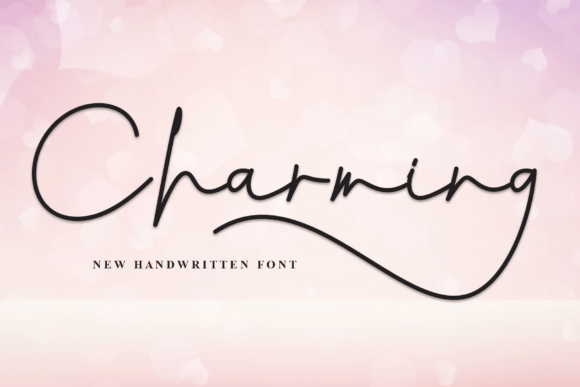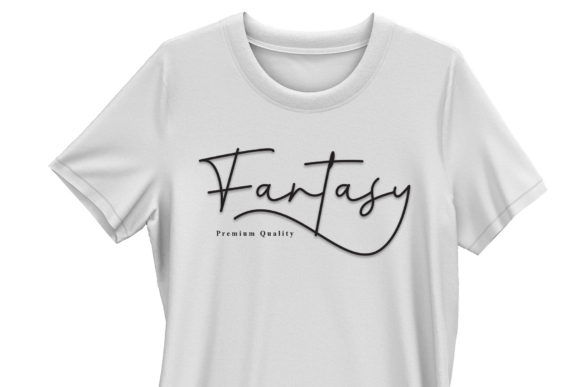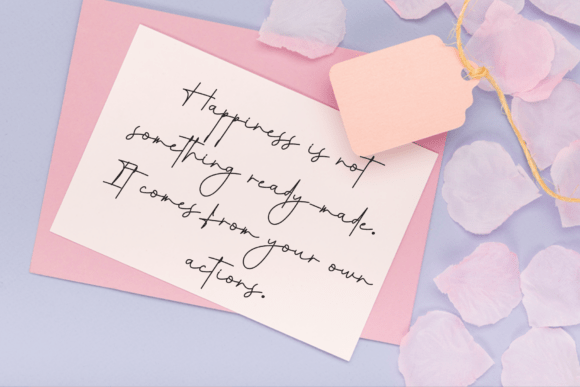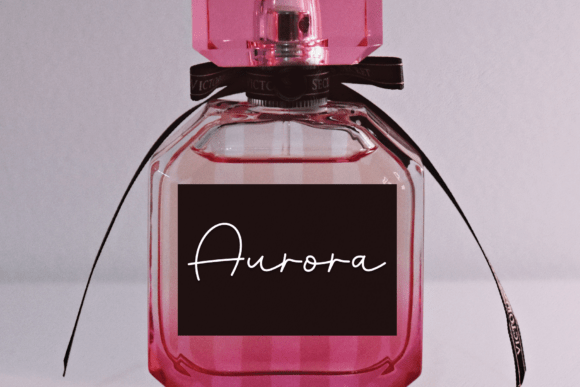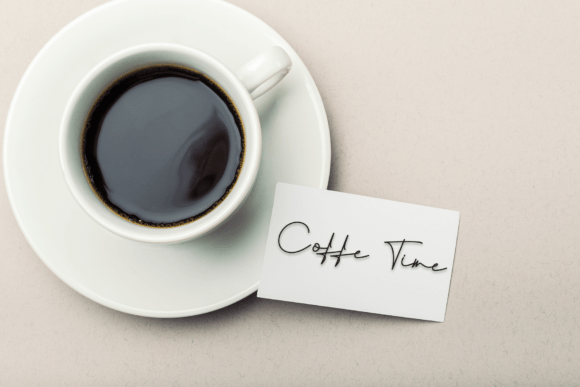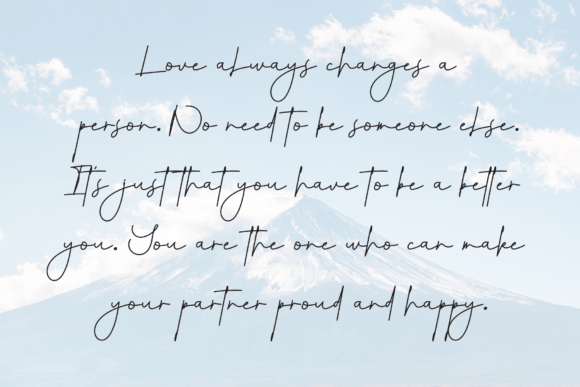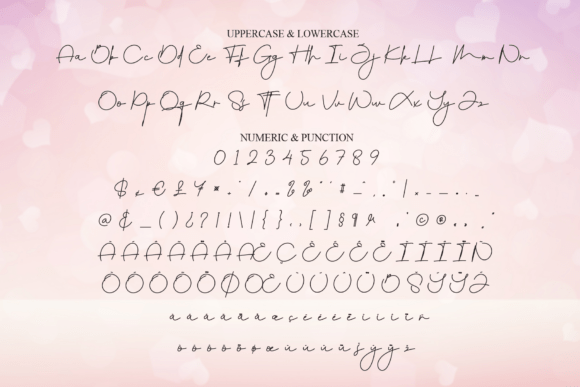
Where Words Become Love Letters
Have you ever stumbled upon a handwritten note from a loved one, and felt your heart skip a beat? The way the pen glides across the paper, leaving a trail of warmth and affection, is truly magical. It’s moments like these that inspire us to create with love and care.
Enter the Charming Font, a beautiful handwritten script font designed to radiate warmth and affection. This elegant font is perfect for romantic projects, wedding invitations, branding, and heartfelt messages. Its flowing strokes and delicate curves make it an ideal choice for designers looking to add an intimate and personal touch to their work.
For designers seeking to convey emotions with style and charm, the Charming Font is a valuable asset. Its versatility and charm make it a go-to font for creating lasting impressions and meaningful connections with your audience.
Key Features of Charming Font
- Font Style: A beautiful, elegant script font with a touch of whimsy, perfect for adding a romantic or vintage feel to your designs.
- Unique Characteristics: Features intricate flourishes, flowing connections, and subtle texture, giving your designs a unique and eye-catching touch.
Charming Font Review
Overall, I have mixed feelings about the “Charming Font”. There are some aspects that I really enjoy, but others that leave me wanting more.
- Unique and elegant design: The font has a distinctive and charming personality that can add a touch of whimsy to any project.
- Good legibility: Despite its ornate nature, the font is still easy to read, making it suitable for body text and larger displays.
- Support for various languages: The font includes a wide range of language support, making it a great choice for international projects.
- Limited character set: The font is missing some special characters, which can be a problem for projects that require them.
- No italic or bold weights: While the font is available in regular weight, it’s not suitable for projects that require italic or bold text.
- Not ideal for small text sizes: Due to its ornate nature, the font can become difficult to read at small text sizes.
While the “Charming Font” has some great qualities, its limitations make it less versatile than I’d like. It’s a great choice for projects that require a unique and elegant design, but may not be the best fit for every project.
Charming Font is ideal for:
- Blog posts and articles
Tips for Getting the Most Out of Charming Font
To get the most out of Charming Font, consider the following tips:
- Use it in combination with other elegant fonts for a sophisticated look.
- Use Charming Font for headings and titles to create a clear hierarchy of information.
- Set the font as the primary text style for the invitation’s main content.
- Use the font’s swashes and flourishes to add a touch of elegance to the invitation’s header and footer.
- Pair Charming Font with delicate, hand-drawn illustrations to create a whimsical atmosphere.
- Use watercolor textures and effects to add a soft, romantic feel to the design.
- Use the font as the primary text style for the book title and author’s name.
- Experiment with font sizes and colors to create visual hierarchy and emphasis.
- Pair Charming Font with a stylized illustration of a book or a related icon to create a clear and recognizable design.
- Use a subtle texture overlay to add depth and interest to the design.
Q: What is the recommended font size for optimal readability with Charming Font?
The recommended font size for optimal readability with Charming Font varies depending on the application and intended use. As a general guideline, use font sizes between 12pt and 24pt for body text, and 36pt to 48pt for headings. Adjust font sizes based on your specific design requirements and audience needs.